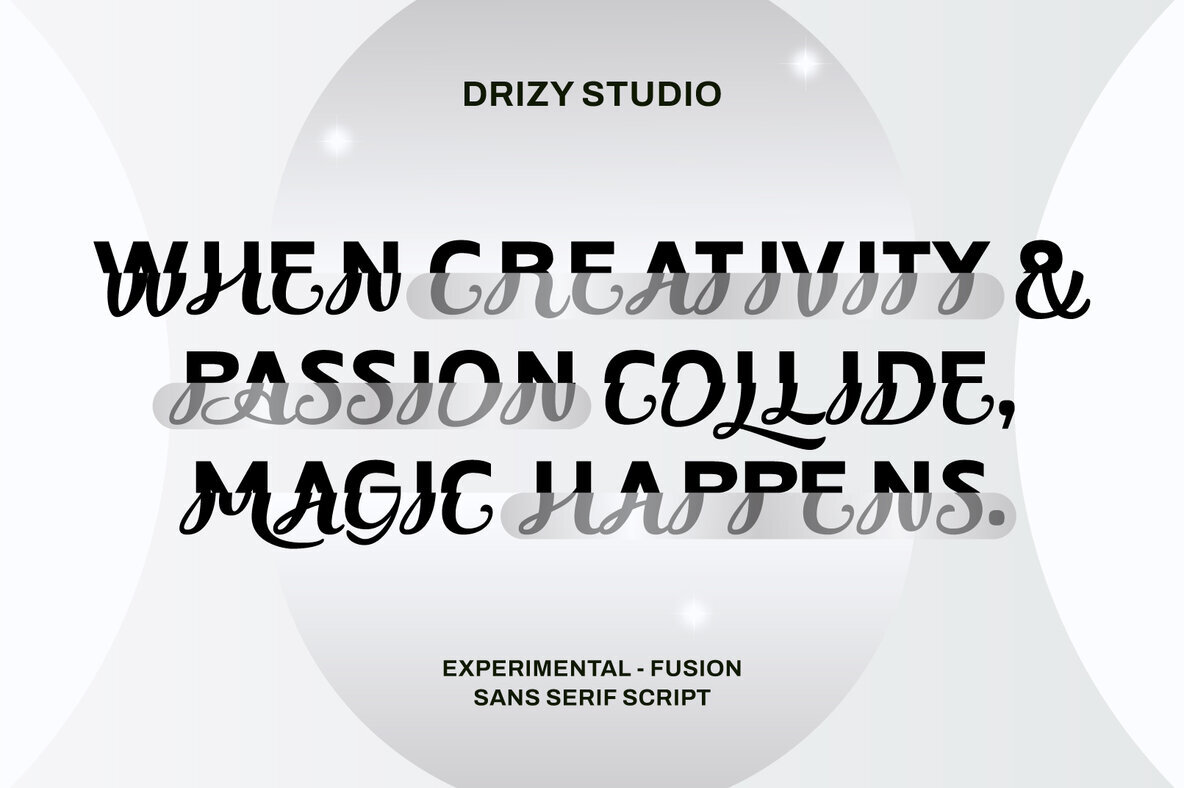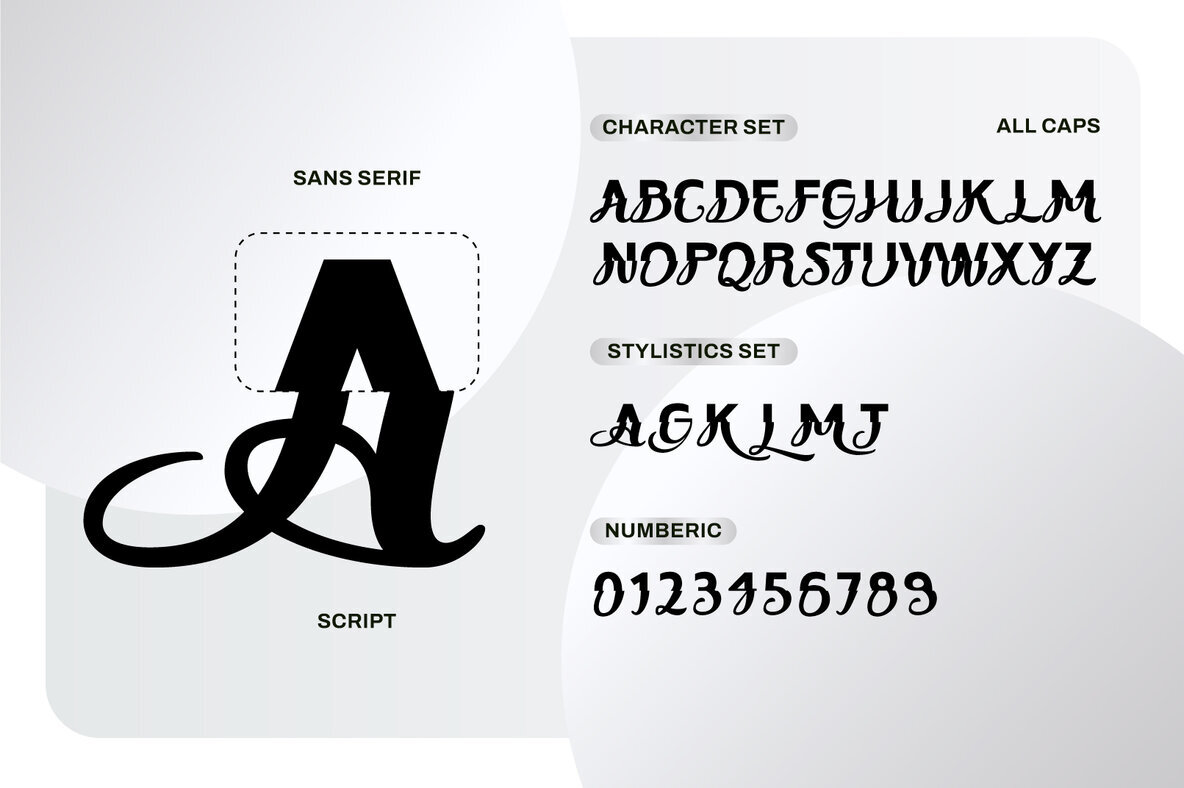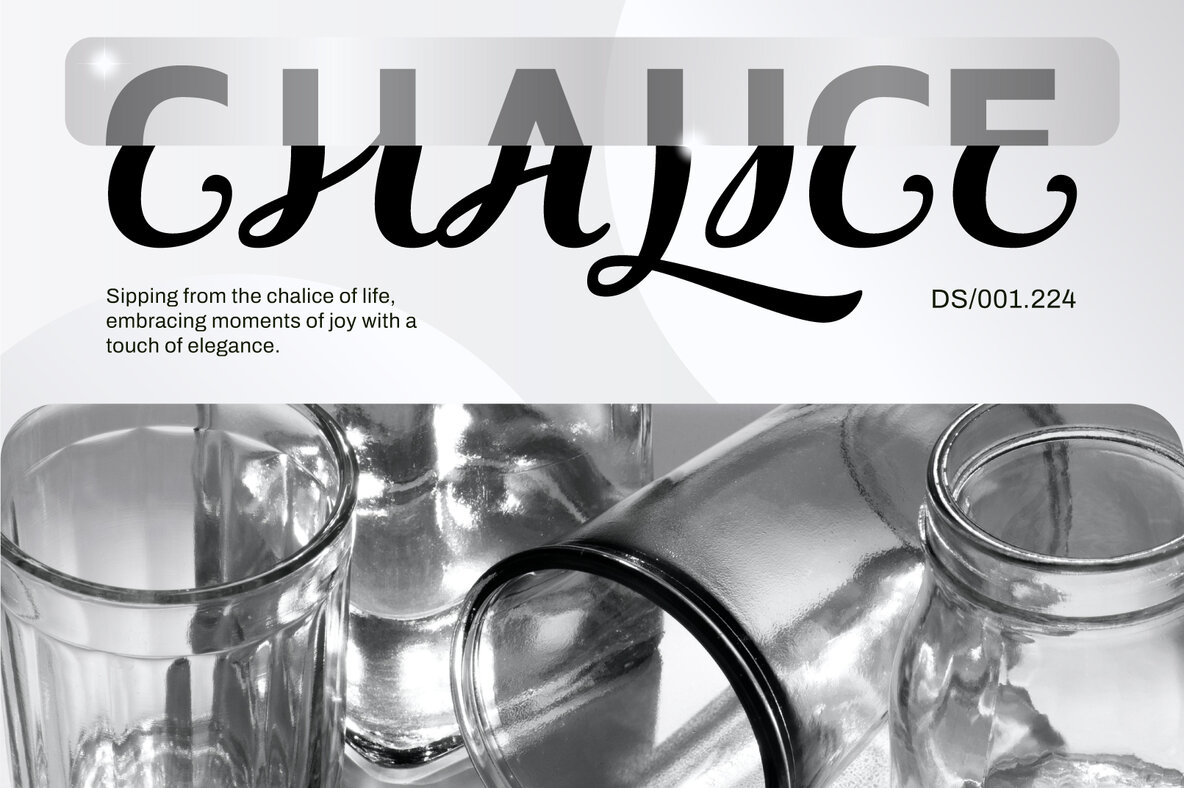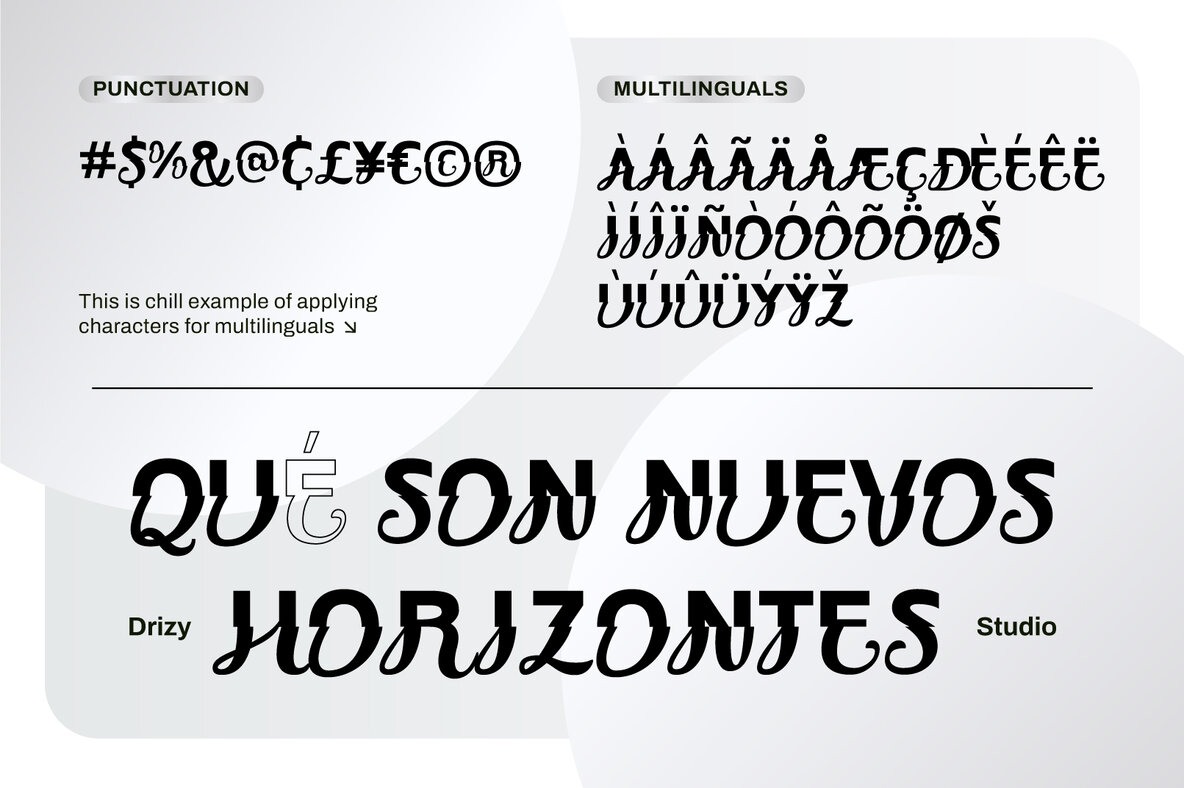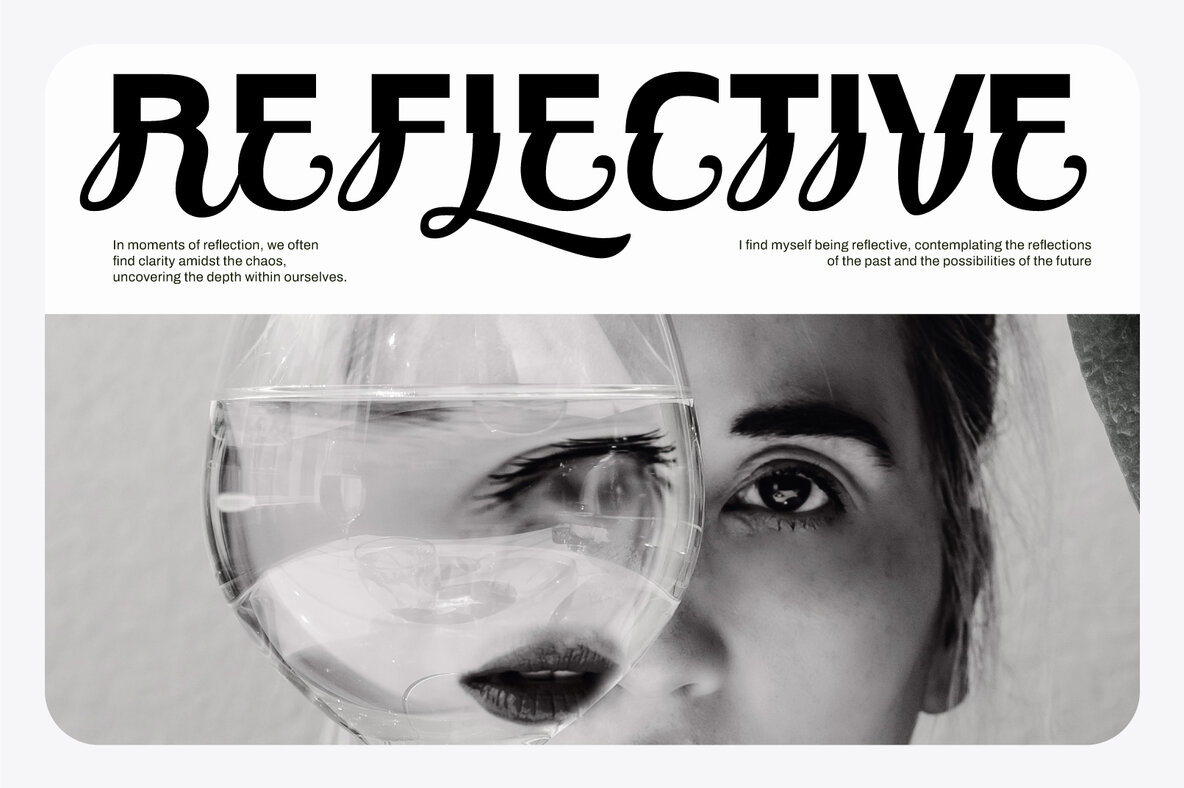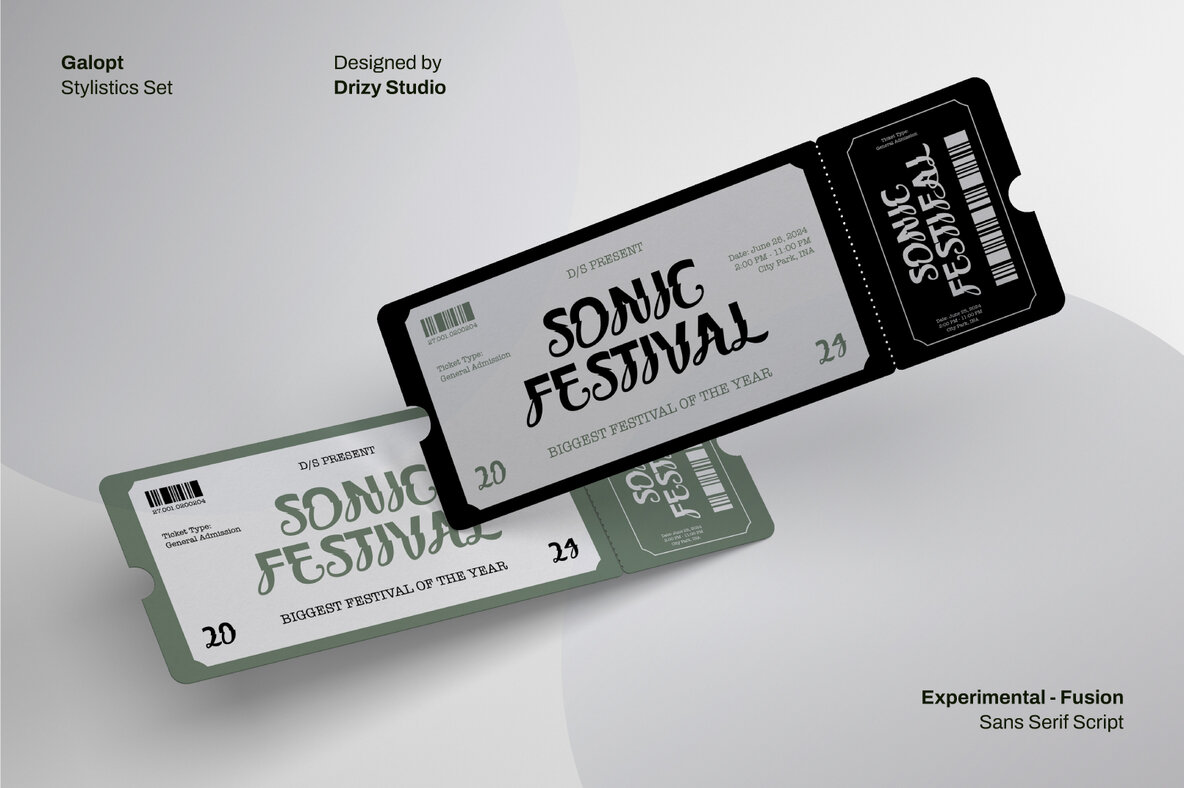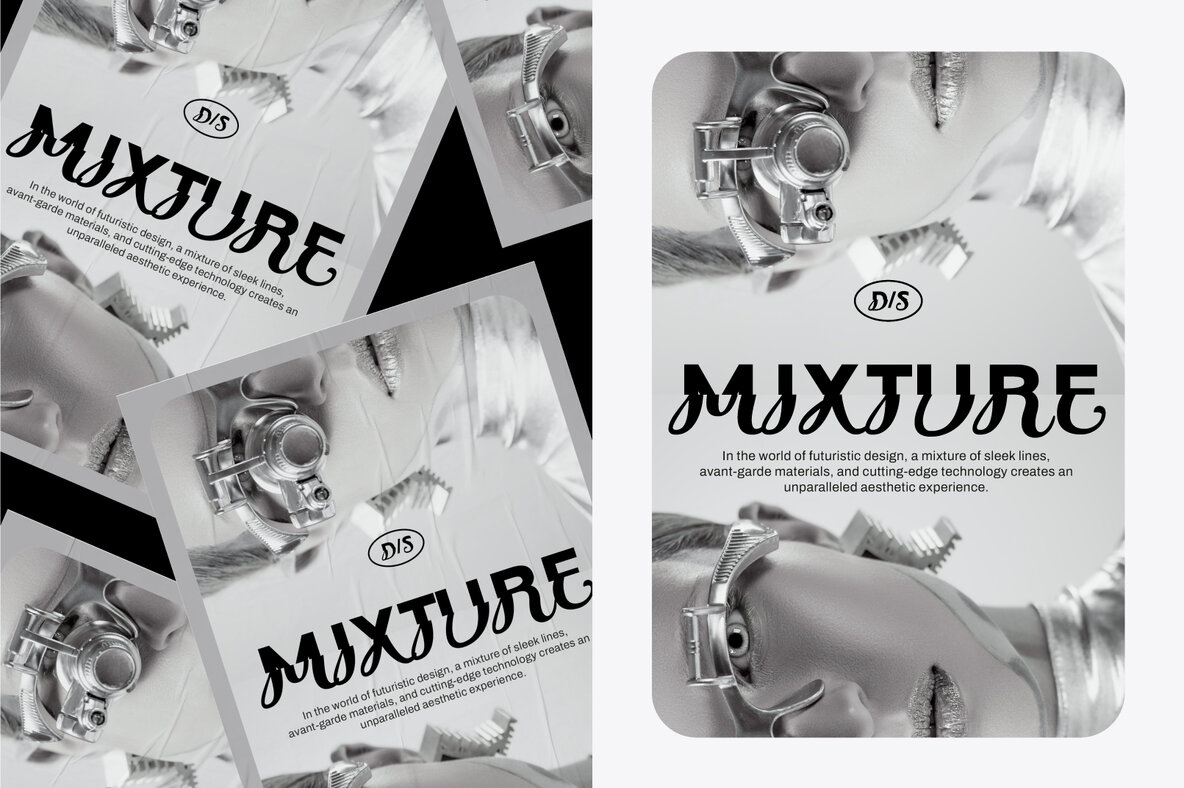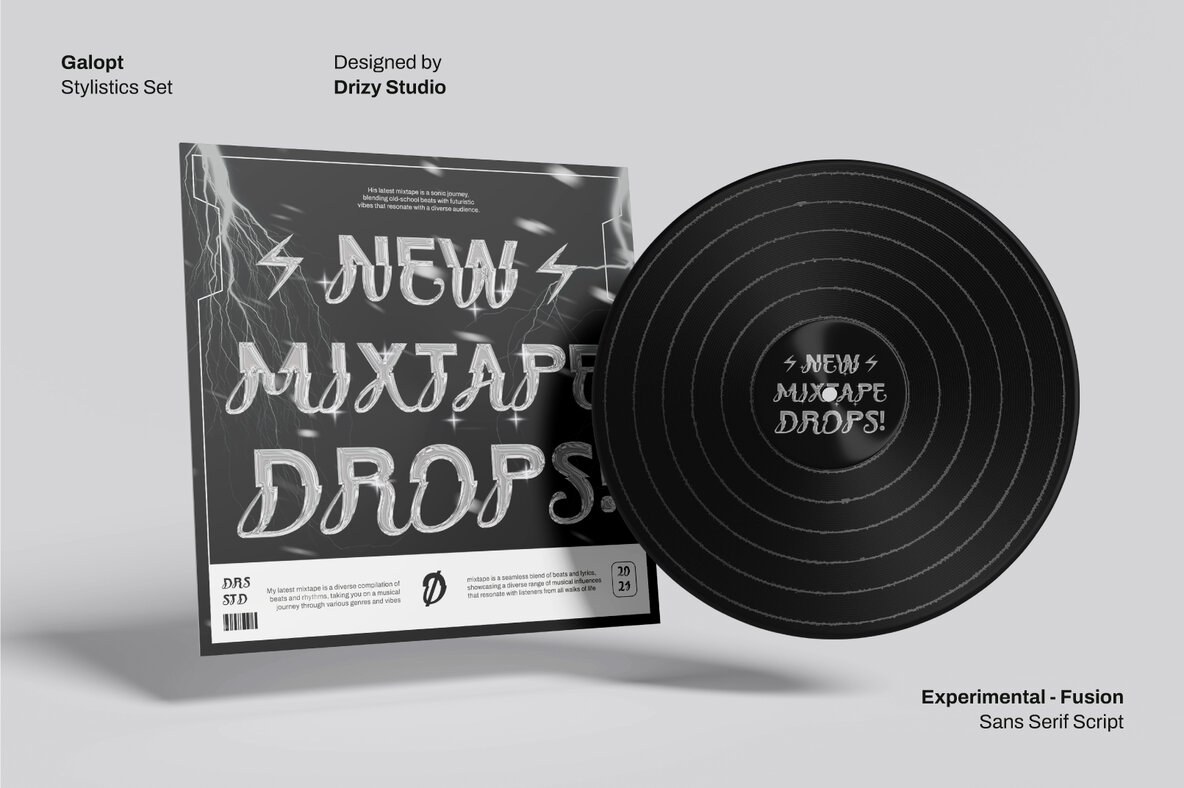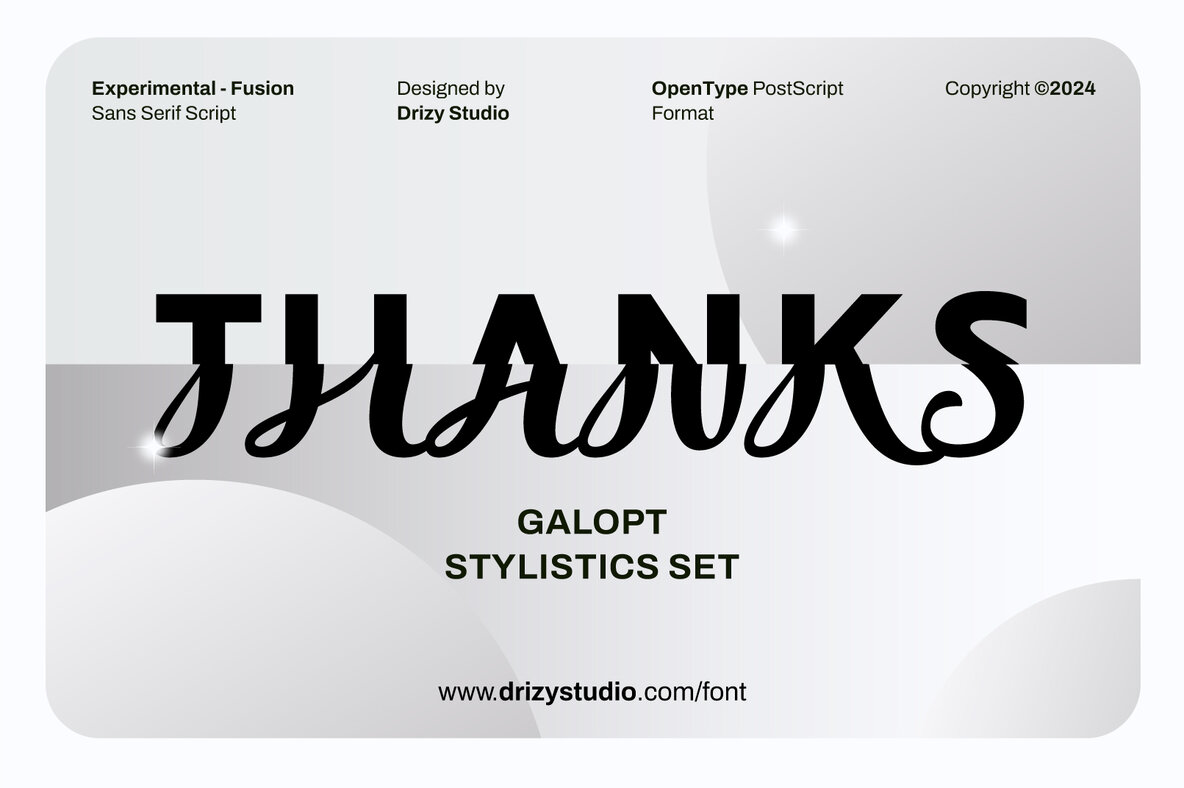
Galopt Font
Galopt Regular
Galopt – Experimental Fusion Script Font Galopt is a Collide – Experimental fusion script font that seamlessly combines traditional script elements with a futuristic and innovative design. This font is a visual symphony, harmonizing the fluidity of classic script with the edginess of experimental typography, resulting in a captivating and unique typeface. Galopt features: Elevate and explore the design possibilities with this Fusion Scrip font!